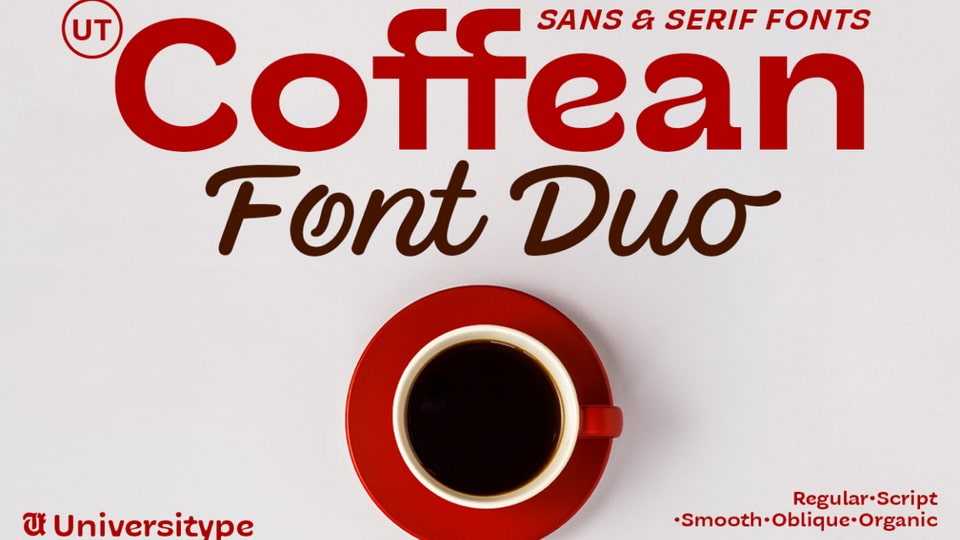
Download Coffean Font Duo, a sans and script typeface that captures coffee bean’s essence — a shape that resonates with warmth, richness, and comfort.